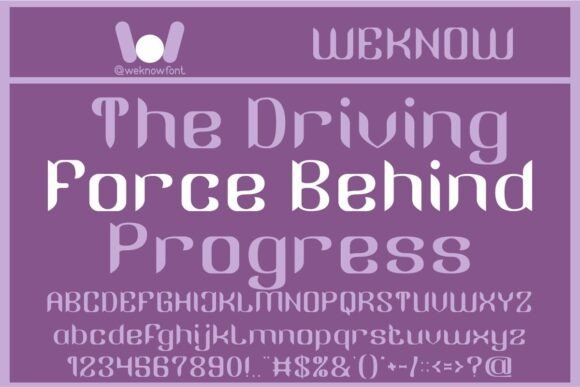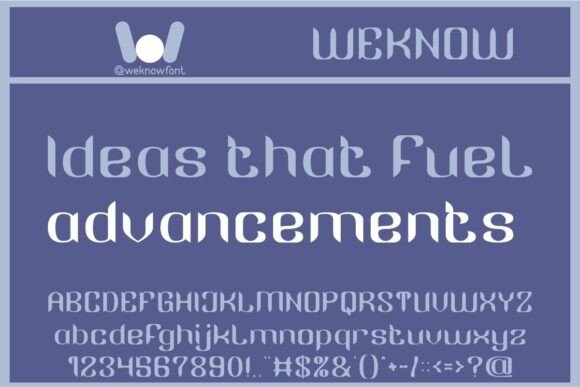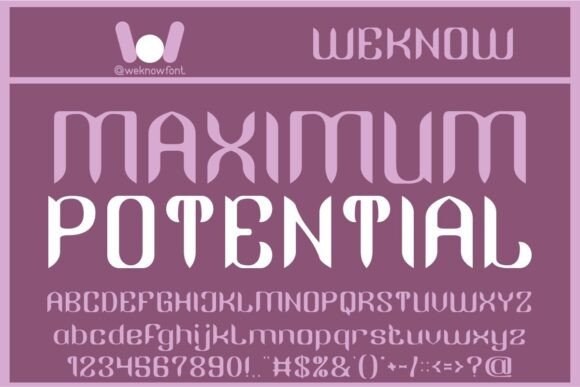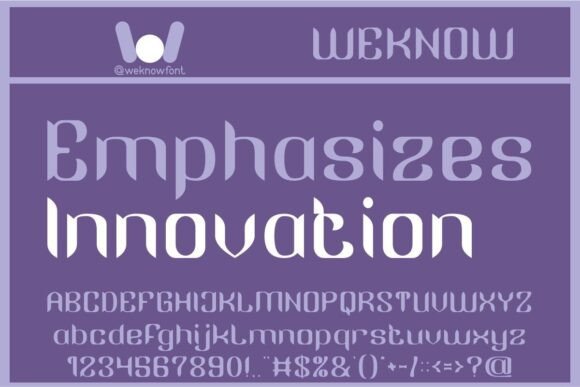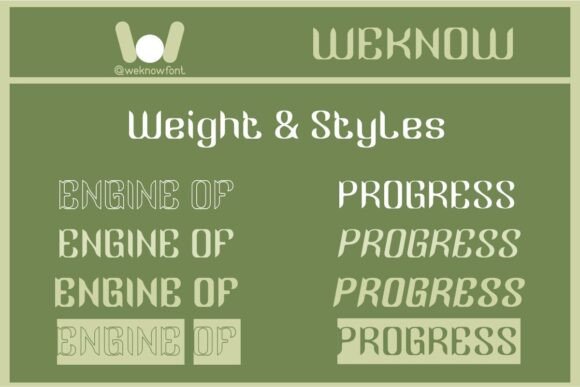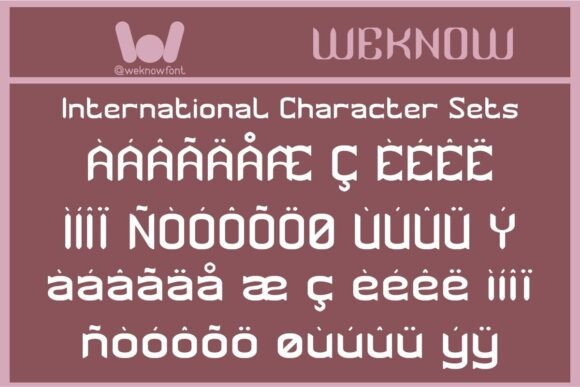
The Engine of Progress: A Font that Propels Your Design Forward
I’ll never forget the moment I stumbled upon the perfect font for a project. I was working late, trying to meet a tight deadline, and my client was being super picky about the typography. I had spent hours scouring the internet for the ideal font, but nothing seemed quite right. That was until I discovered Engine of Progress – a game-changing display font that boldly navigates the crossroad of contemporary finesse and razor-keen precision.
A Powerful Font for High-Impact Headlines
Engine of Progress stands tall as a powerfully striking display font, perfectly suited for carving out high-impact headlines. Its bold and precise design makes it an excellent choice for corporate and brand identities, effortlessly acting as the keystone of your visual presence. Whether you’re in the apparel industry, music, gaming, movies, or comics, this font confidently infuses typographic elegance into every stitch, beat, or frame.
- ✨ Versatility: Engine of Progress seamlessly fits into various design contexts, from posters to web presence, and even social media platforms like YouTube or Instagram.
- ✅ Typography elegance: The font’s design is both modern and sophisticated, making it perfect for brands and designers looking for a unique edge.
- 💥 High-impact headlines: Engine of Progress is specifically designed to grab attention, making it ideal for headlines, titles, and key messaging.
While Engine of Progress is an exceptional font, there are a few things to keep in mind: ⚠️ Legibility at small sizes: As with many display fonts, Engine of Progress may lose legibility at very small sizes. Make sure to test it at different scales to ensure it works for your specific design needs. 🤔 Glyph support: While the font has an impressive range of glyphs, some users may find that certain special characters are not included.
- Experiment with OpenType features, such as Stylistic Alternates and Glyphs, to add more creativity to your typography.
- Explore OpenType features, such as Swashes and Ligatures, to add more flair to your typography.
The Backstory of Engine of Progress
Engine of Progress was designed with the goal of creating a font that could propel brands and designers forward in the world of modern design. Inspired by the intersection of technology and creativity, the font’s designer aimed to craft a typography solution that would be both elegant and powerful. With its bold and precise design, Engine of Progress is the perfect messenger for your story, whether you’re creating a poster, establishing your web presence, or crafting a visual identity.
| What is Engine of Progress best suited for? | Engine of Progress is perfect for high-impact headlines, corporate and brand identities, and designs that require a bold and elegant typography solution. |
| Is Engine of Progress available in different weights or styles? | Engine of Progress comes in a range of weights and styles, making it versatile for various design applications. |